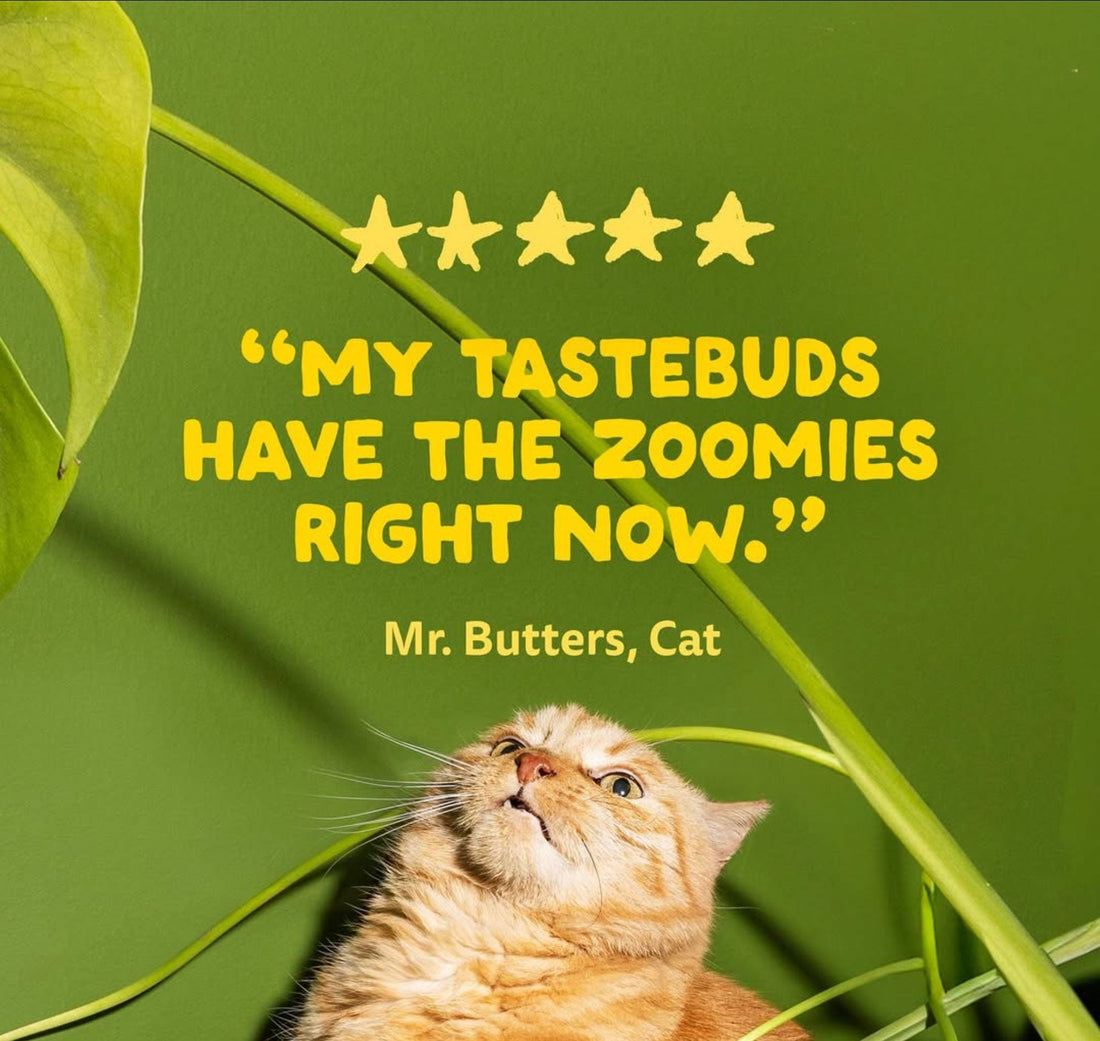
Fonts in Use: Imperfect Font Adds Charm to Edgard & Cooper’s Clever Instagram Posts
Fun Fonts for a Fun Pet Food Company
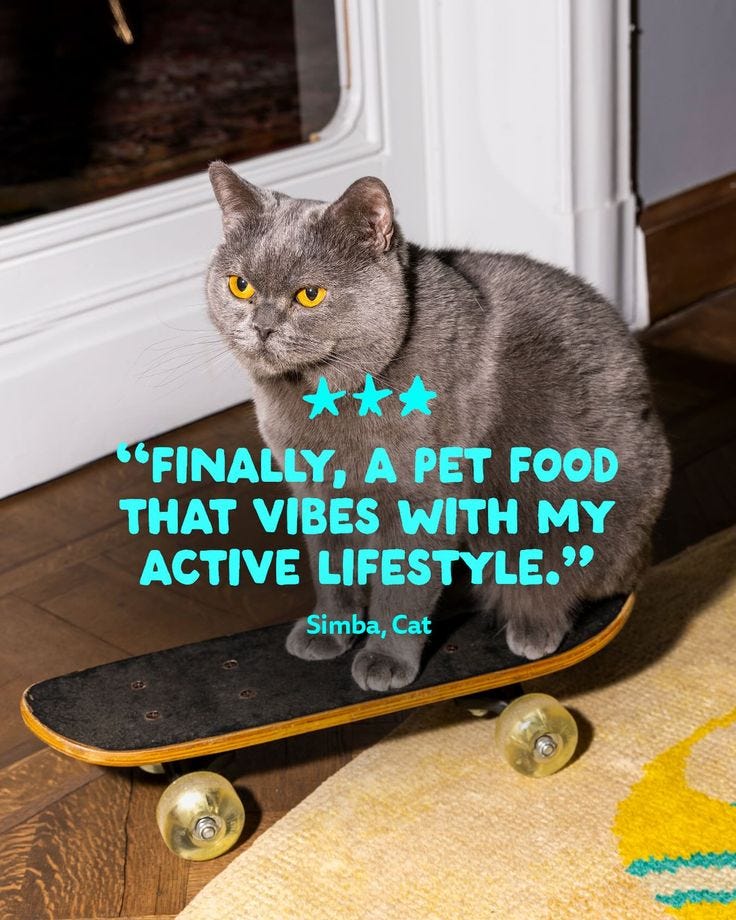
I love seeing my fonts show up in the world, especially when they’re paired with something as fun as pets.
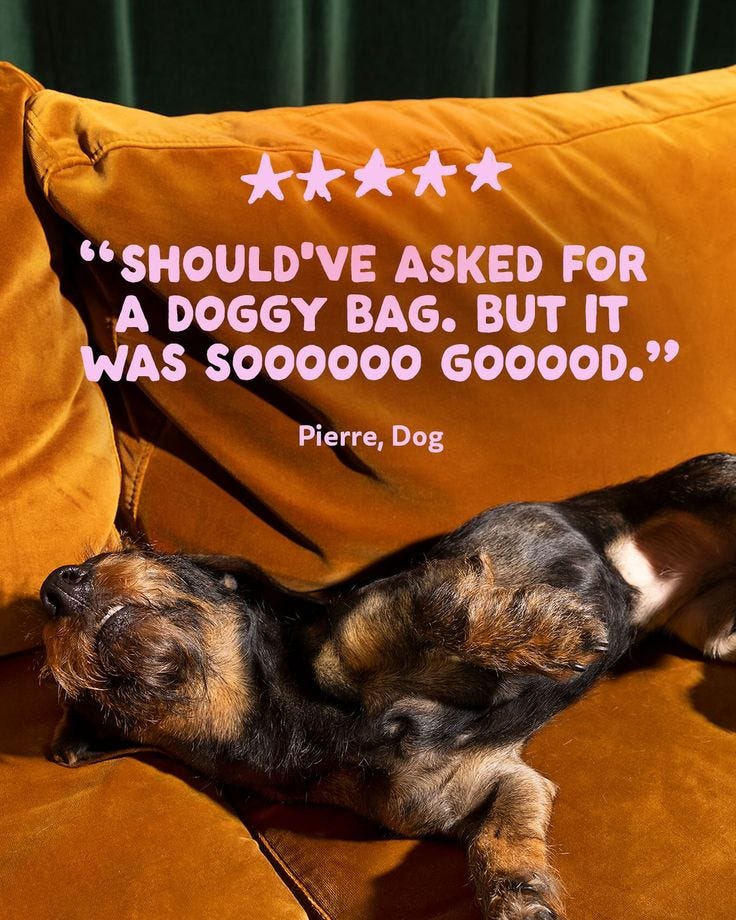
Edgard & Cooper, a pet food brand known for its colorful packaging, playful voice, and wholesome ingredients, recently shared an Instagram series using Imperfect. Their brand uses friendly, modern design, so seeing them mix polished pet photography with a relaxed handwritten font felt like such a nice fit.
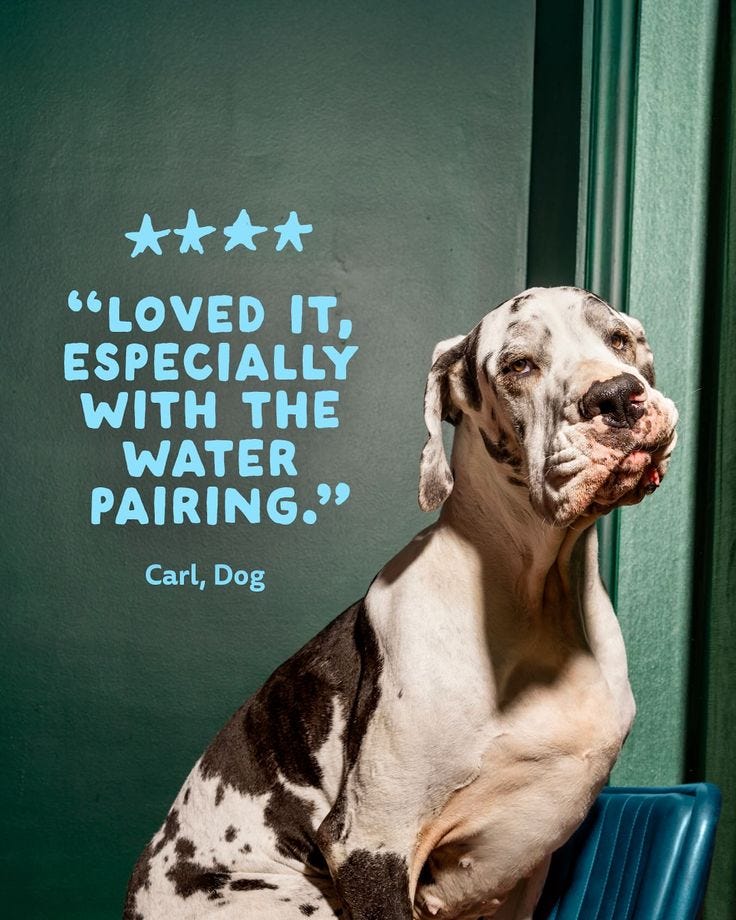
The series features adorable, editorial-style pet portraits.
The pet photos look polished and expressive, and Imperfect font used for the quotes adds a warm, casual touch that makes the posts feel more human.
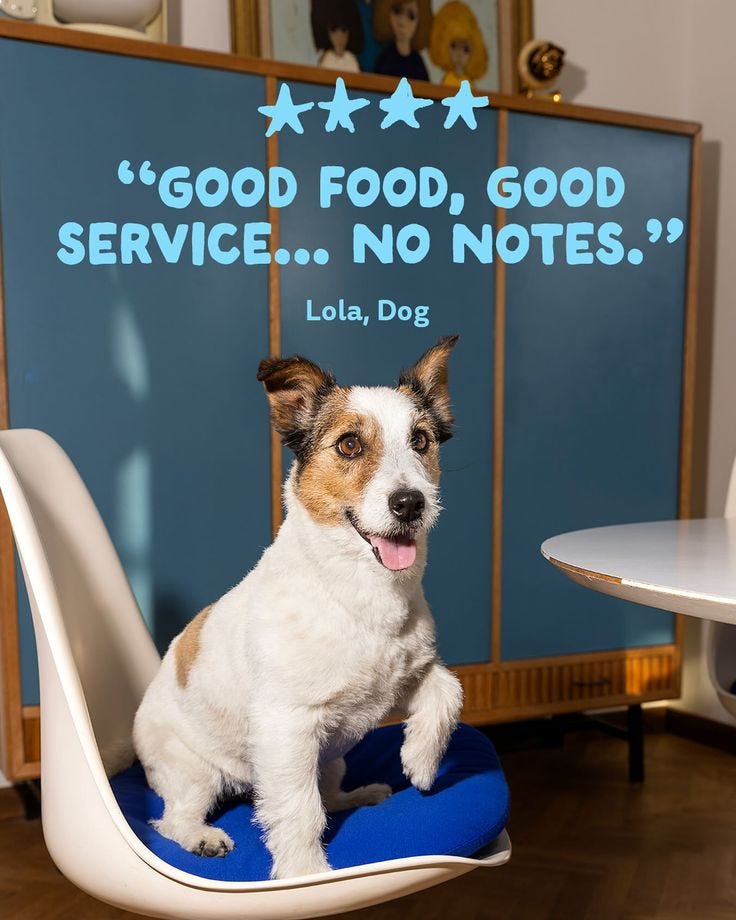
One of my favorites is a cat named Mr. Butters saying, “My taste buds have the zoomies right now.” Another good one is “Should’ve asked for a doggy bag. But it was soooooo goooood.” from Pierre the dog. The combination of classy photos and a handwriting-style font gives the posts a really fun personality. The unexpected reviews from pets definitely made me smile.
Imperfect is a handwritten sans serif I drew by hand, including alternates to keep it feeling loose and natural. It was inspired by things I love like vintage imperfect printing, doodling, and handwritten notes. It works really well for logos, quotes, titles, and anything that needs a handmade touch.
I was super excited to see Edgard & Cooper use it in their Instagram series. Their brand blends professionalism with playfulness and I think It’s a really nice balance that is a great fit for Imperfect font.